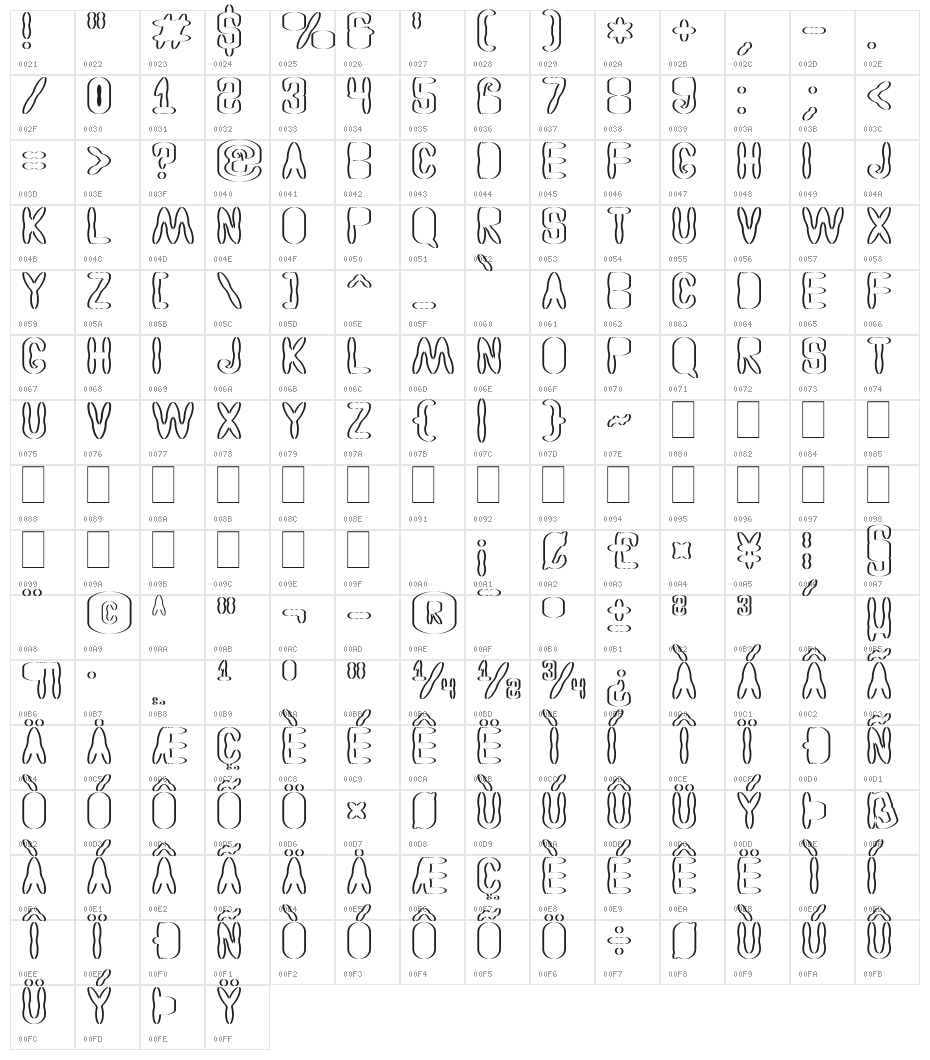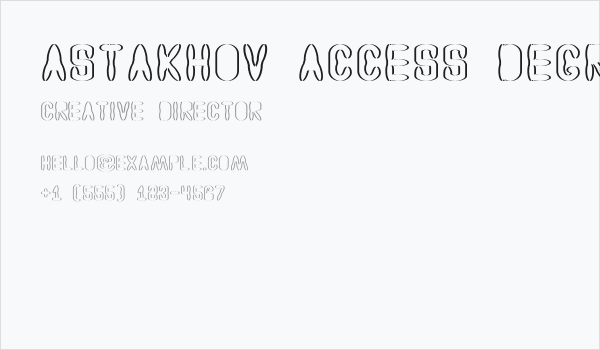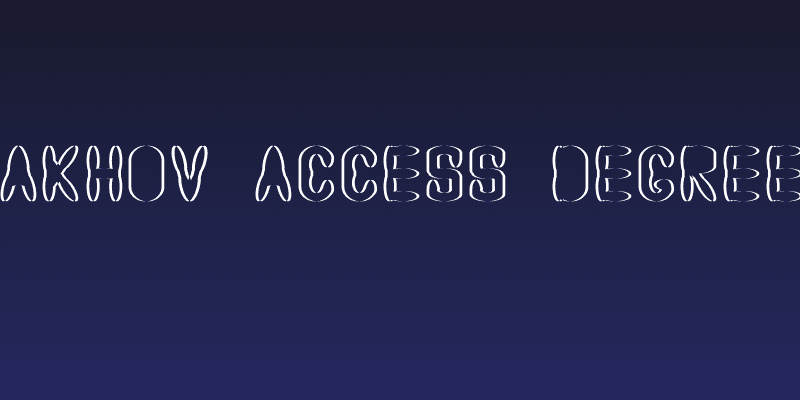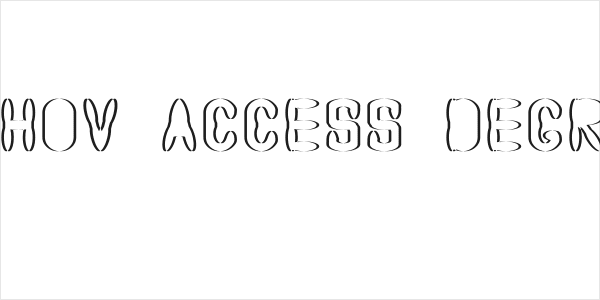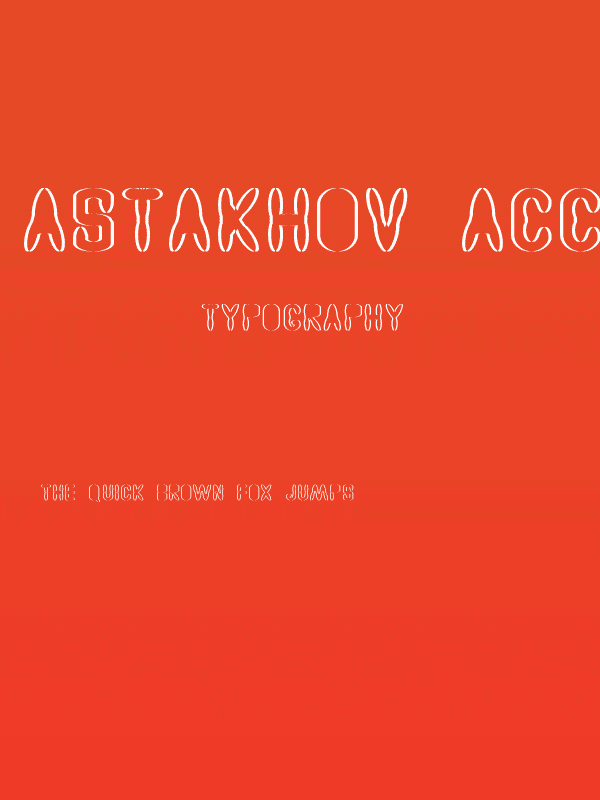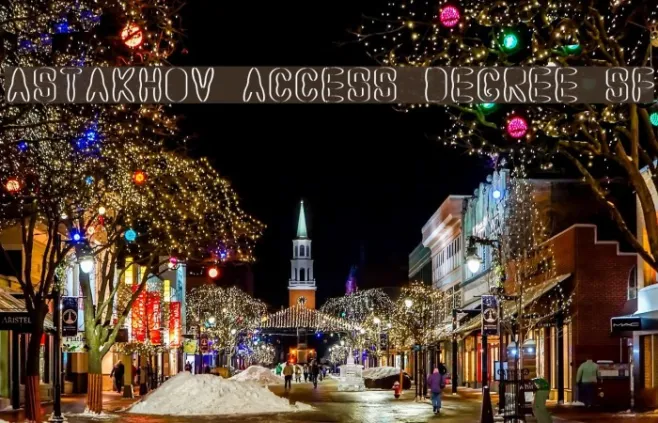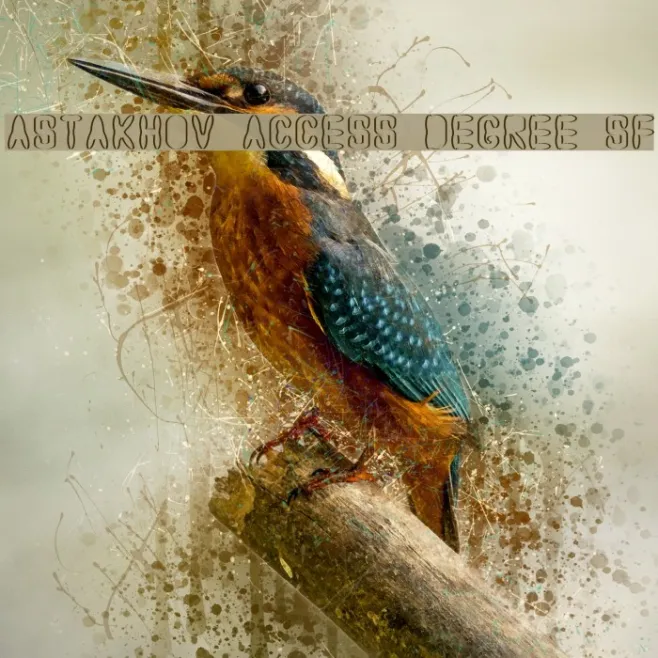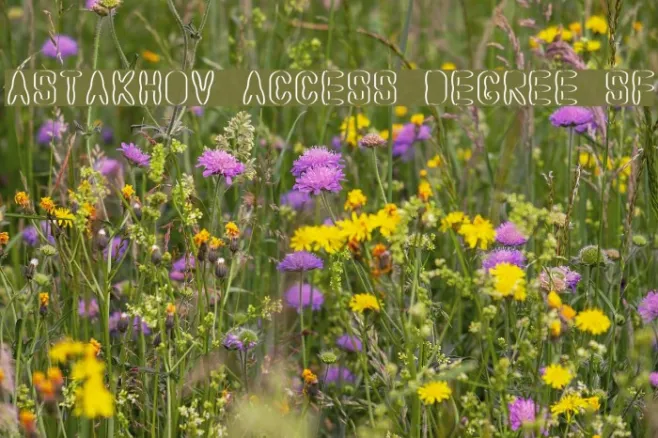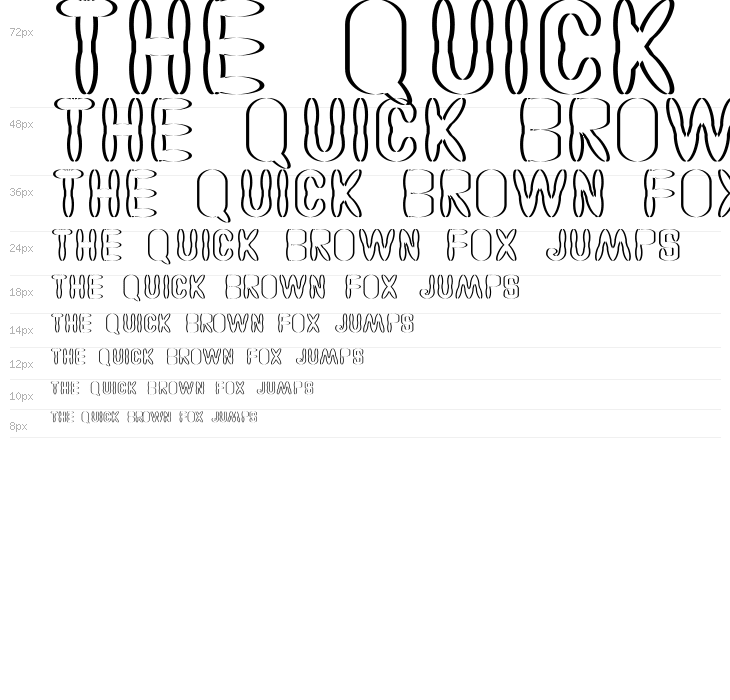
Astakhov Access Degree SF Font
Astakhov Access Degree SF Description
This font features a unique, artistic style with a hollow, outlined appearance that gives it a modern and edgy look. The characters are bold and have a playful, almost cartoonish quality, with rounded edges and a slightly irregular form that adds to its charm. The uppercase and lowercase letters maintain a consistent design, ensuring readability while still offering a distinctive flair. The numerals and special characters follow the same stylistic approach, making the font versatile for various creative applications. Its design is eye-catching and suitable for projects that require a bold statement.
| Proposed Projects | Ideal for posters, album covers, branding, and creative digital artwork. |